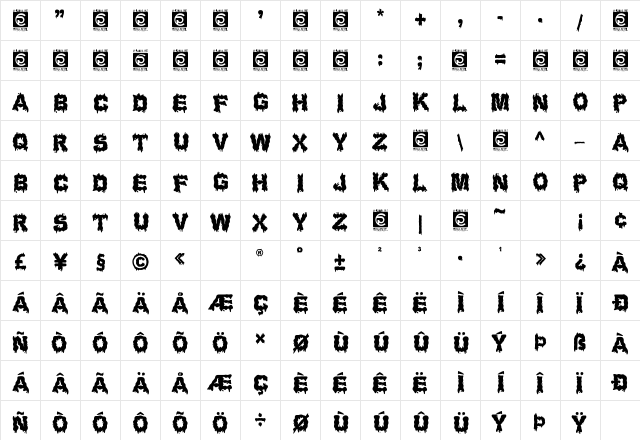
Complete Water Splash Regular glyph index. Displaying only characters natively supported by Water Splash Regular font.
Water Splash is a composed and adaptable typeface that performs quietly and consistently across a wide range of design contexts.